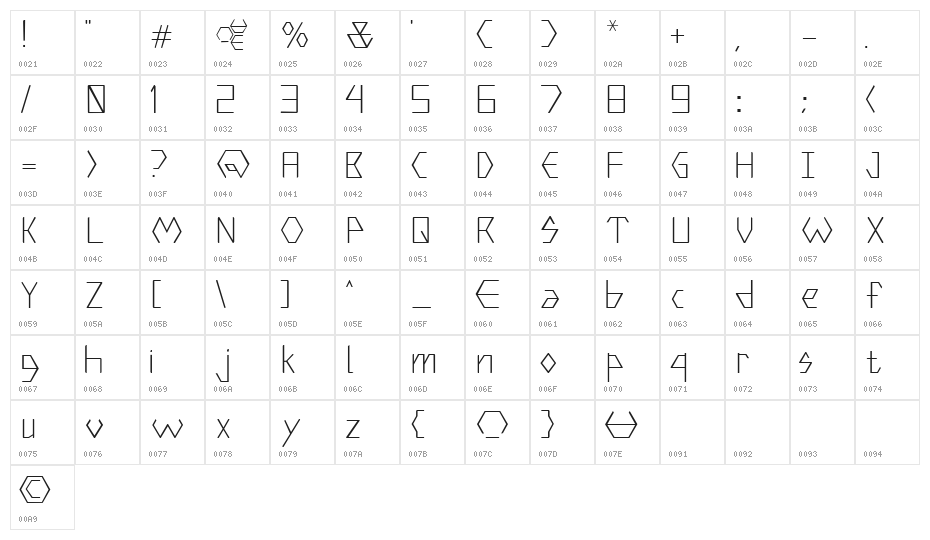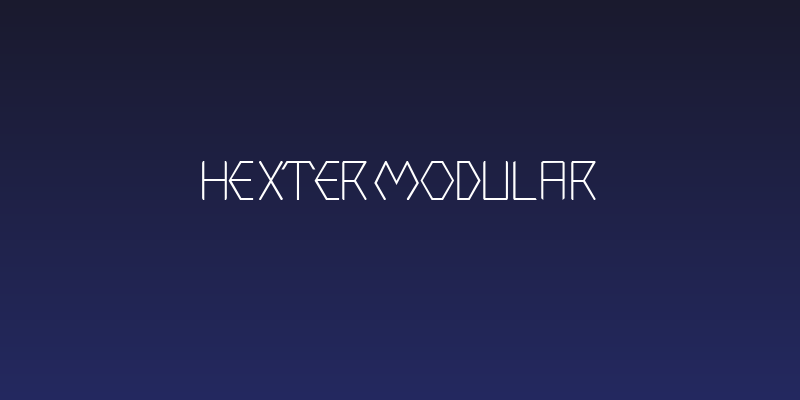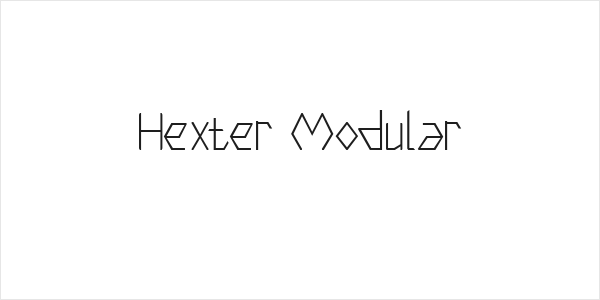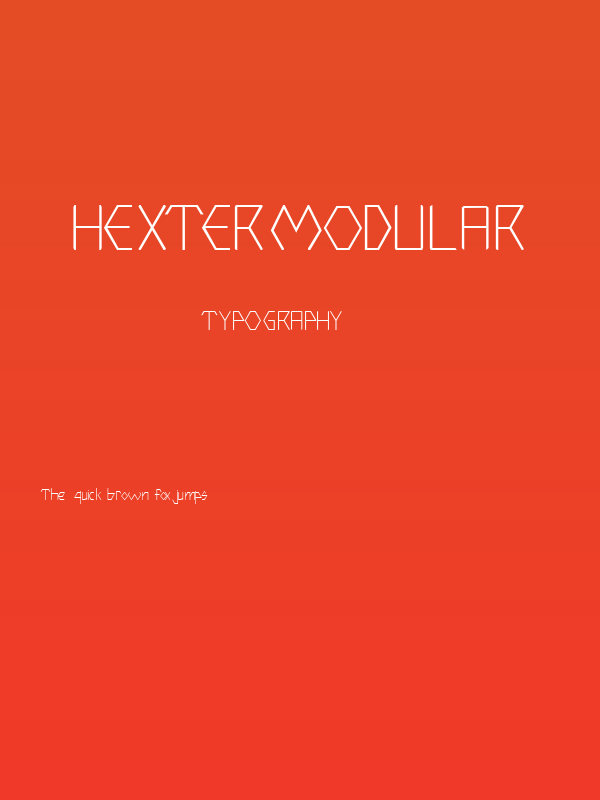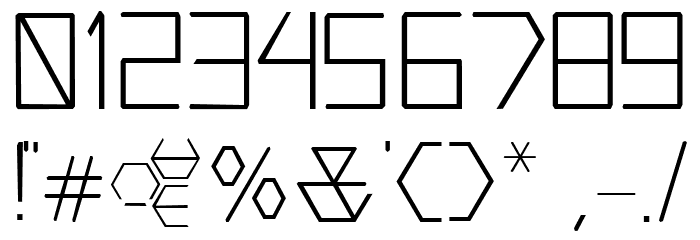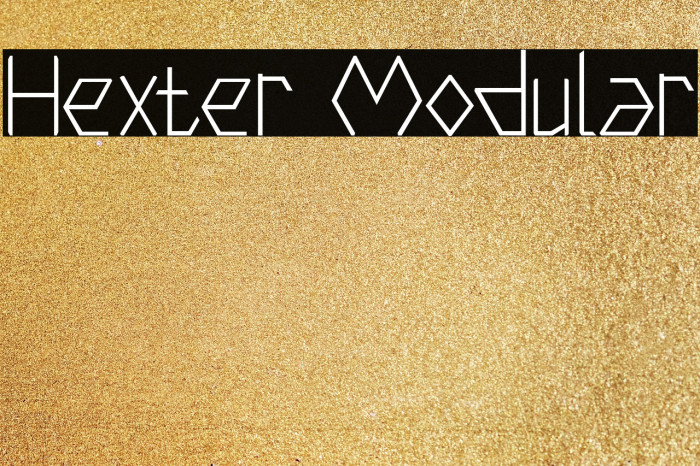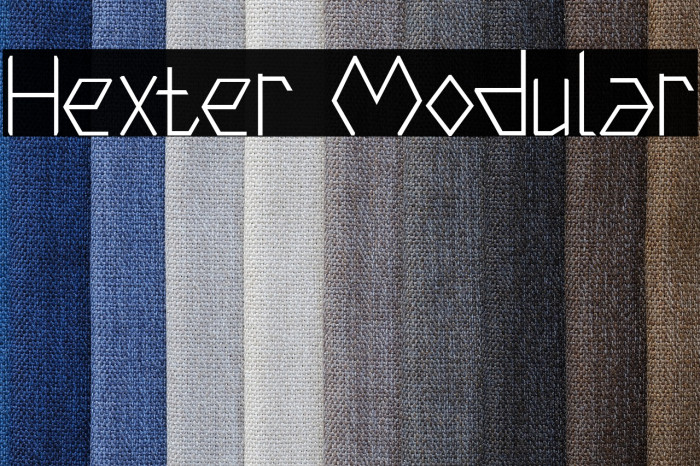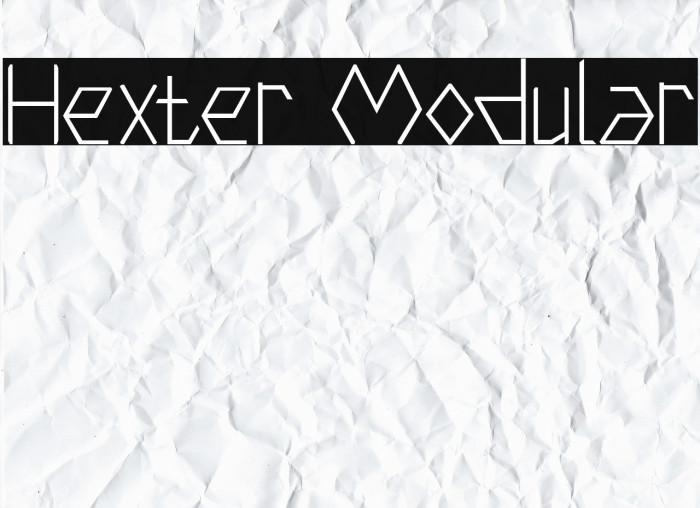
Hexter Modular Font
Hexter Modular Description
This font features a geometric and modular design, characterized by its angular and linear structure. Each character is constructed with straight lines and sharp angles, creating a futuristic and technical appearance. The uppercase and lowercase letters maintain a consistent height, contributing to a uniform look. Numbers and special characters follow the same design principles, ensuring cohesion across all elements. The font's style is reminiscent of digital or sci-fi themes, making it suitable for projects that require a modern and edgy aesthetic.
| Proposed Projects | Ideal for technology branding, sci-fi book covers, video game interfaces, and modern poster designs. |